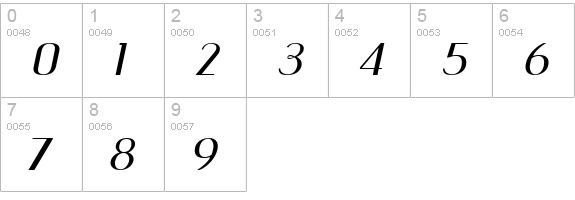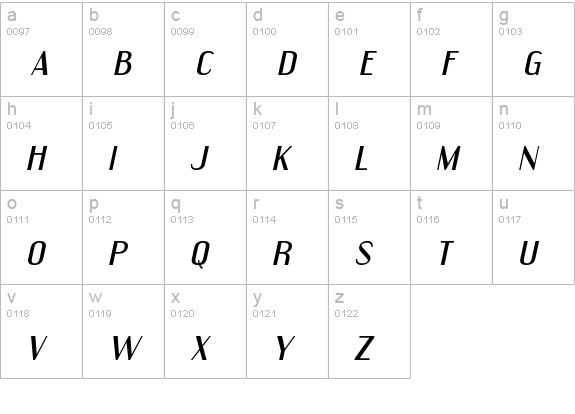
Engebrechtre Expanded Italic is a distinctive, extended-width, italic variant in the Engebrechtre typeface family \xE2\x80\x94 well suited to design and typography projects.
Engebrechtre Expanded Italic font is a sleek and elegant typeface that exudes sophistication and modernity. With its stylish slanted design and extended letterforms, this font is perfect for adding a touch of flair to your projects. Whether you're designing a website, creating branding materials, or crafting invitations, Engebrechtre Expanded Italic font will elevate your work to the next level. The best part? Engebrechtre Expanded Italic font is available for free download at FontsMarket.com. This means you can easily access this beautiful typeface and use it in your designs without any cost. Don't miss out on the opportunity to enhance your projects with the exquisite Engebrechtre Expanded Italic font today!